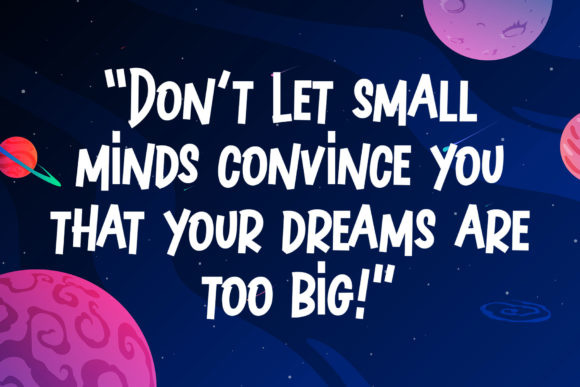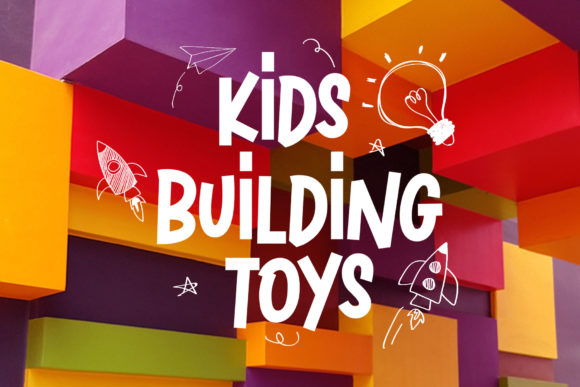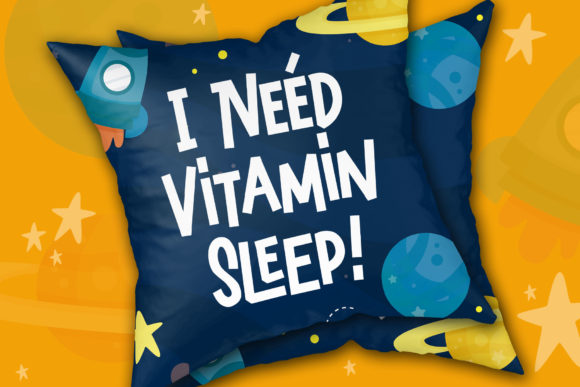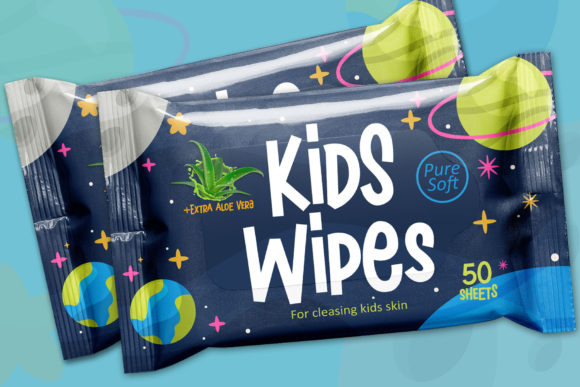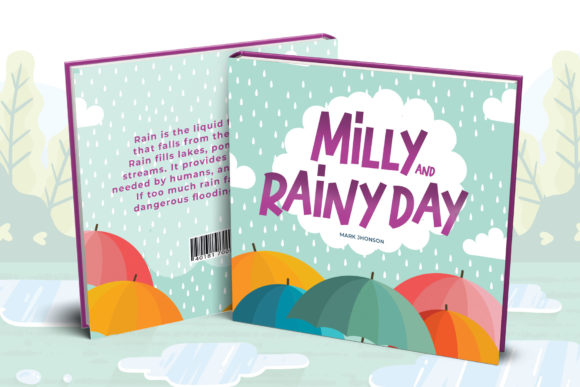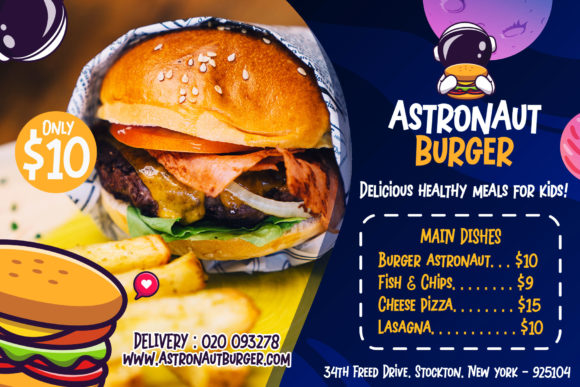
Burgery Font: The Ultimate Choice for Fun and Playful Designs
Are you looking for a font that can add a touch of playfulness and joy to your designs? Look no further than Burgery Font! This fun and joyful display font is perfect for any children activity or school project, and is sure to make your designs come alive.
What is Burgery Font?
Burgery Font is a chunky lettered font that embodies playfulness and authenticity. Its unique and fun design makes it the perfect choice for designers and crafters who want to add a personal touch to their work. Whether you’re creating a children’s activity sheet, a school project, or a fun design for a kids’ party, Burgery Font is the perfect choice.
Characteristics of Burgery Font
Burgery Font has several characteristics that make it stand out from other fonts. Some of its key features include:
- Chunky letters: The letters in Burgery Font are thick and chunky, making them easy to read and fun to look at.
- Playful design: The font has a playful and joyful design that is sure to bring a smile to anyone’s face.
- Authentic feel: Burgery Font has an authentic feel that makes it perfect for use in children’s activities and school projects.
Uses for Burgery Font
Burgery Font is a versatile font that can be used in a variety of ways. Some of the most popular uses for this font include:
- Children’s activities: Burgery Font is perfect for use in children’s activity sheets, such as coloring pages, puzzles, and games.
- School projects: The font is also great for use in school projects, such as posters, presentations, and reports.
- Party designs: Burgery Font can be used to create fun and playful designs for kids’ parties, such as invitations, banners, and decorations.
- Digital designs: The font can also be used in digital designs, such as social media graphics, blog posts, and website headers.
Why Choose Burgery Font?
There are many reasons why you should choose Burgery Font for your next design project. Some of the benefits of using this font include:
- Easy to read: The chunky letters in Burgery Font make it easy to read, even for young children.
- Fun and playful: The font’s playful design is sure to add a touch of fun and joy to your designs.
- Versatile: Burgery Font can be used in a variety of ways, from children’s activities to digital designs.
- Authentic feel: The font’s authentic feel makes it perfect for use in children’s activities and school projects.
Here are a few tips and tricks for using Burgery Font:
- Use it with color: Burgery Font looks great when used with bright and bold colors. Try pairing it with a fun color scheme to add even more personality to your designs.
- Experiment with sizes: The chunky letters in Burgery Font look great in large sizes, but they can also be used in smaller sizes to add a touch of playfulness to your designs.
- Pair it with other fonts: Burgery Font can be paired with other fonts to create a unique and interesting design. Try pairing it with a sans-serif font for a fun and modern look.
Burgery Font is a fun and joyful display font that is perfect for any children activity or school project. Its chunky letters and playful design make it easy to read and fun to look at. With its versatility and authentic feel, Burgery Font is the perfect choice for designers and crafters who want to add a personal touch to their work. So why not give Burgery Font a try and see how it can bring your designs to life?